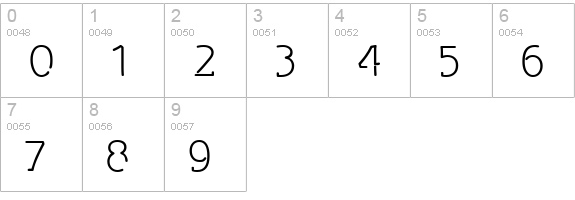
Spongy Font Details
Introducing Spongy font, a delightful and playful typeface that will add a touch of whimsy to any design project. This unique font captures the essence of youthful exuberance with its bouncy letterforms and soft, rounded edges. Each character has a spongy, almost tactile quality, making it a truly delightful choice for any creative endeavor. Spongy font is the perfect choice for children's books, party invitations, posters, and any other design project that requires a touch of fun and lightheartedness. Its versatility allows it to be used in both digital and print media, ensuring that your designs will always stand out from the crowd. What makes Spongy font even more enticing is that it is available for free download at FontsMarket.com. Yes, you read that right - this charming typeface can be yours with just a few clicks. Whether you're a professional designer or someone looking to add a little flair to your personal projects, Spongy font is a must-have addition to your font library. So why wait? Download Spongy font today and let your creativity run wild. With its free availability and delightful design, this font is sure to bring a smile to your face and captivate your audience. Don't miss out on the opportunity to add a touch of playfulness to your designs - get Spongy font now and let your imagination take flight.